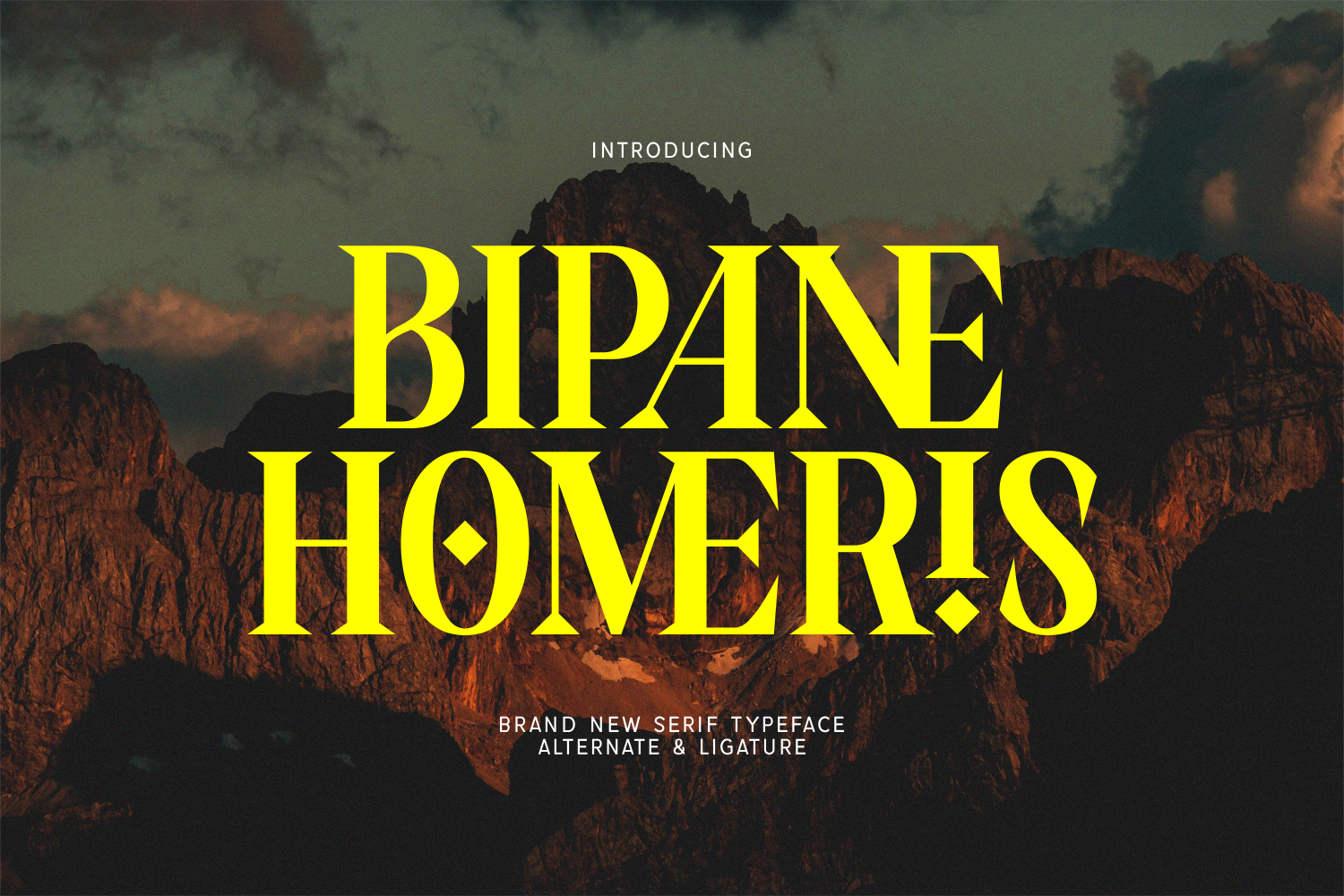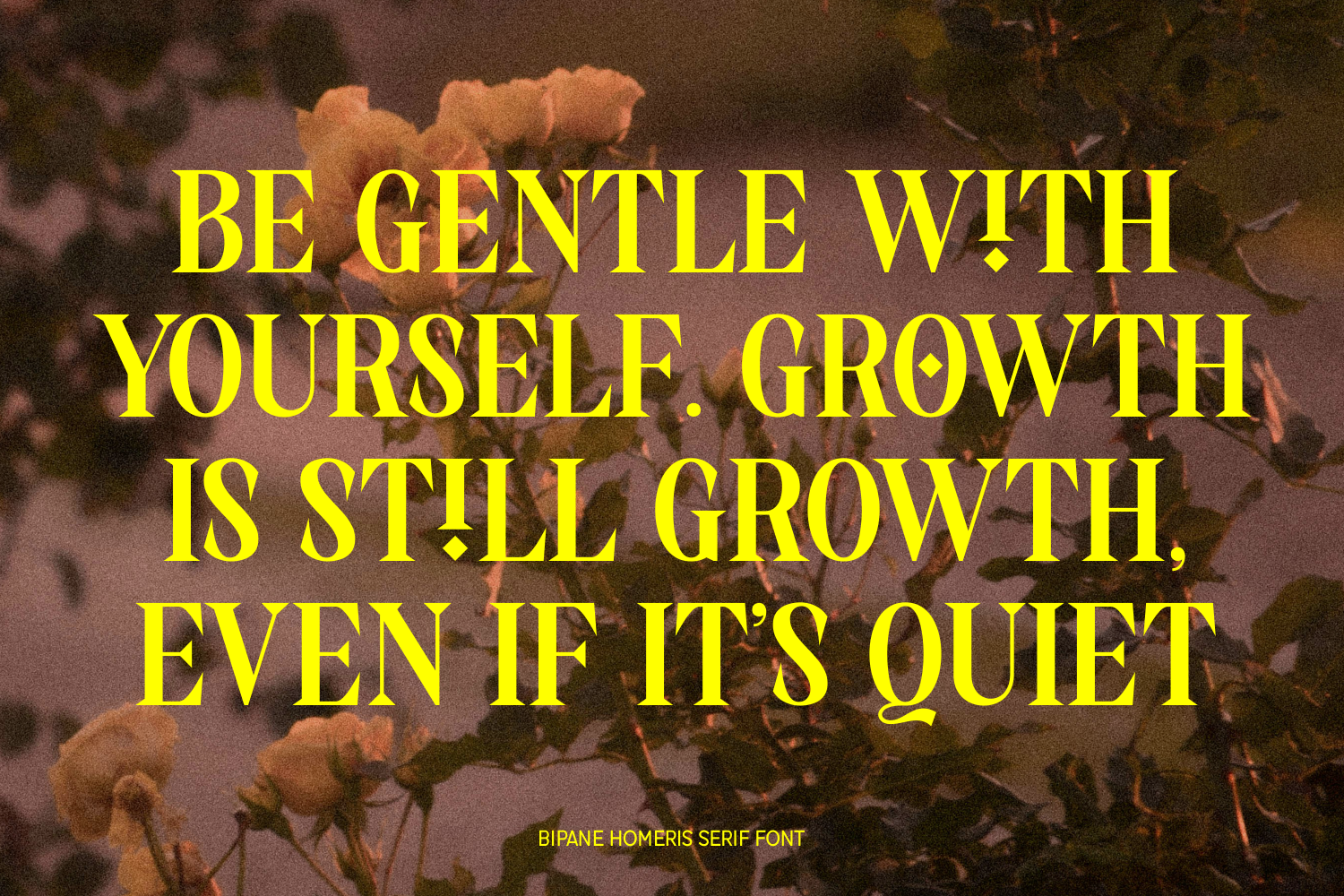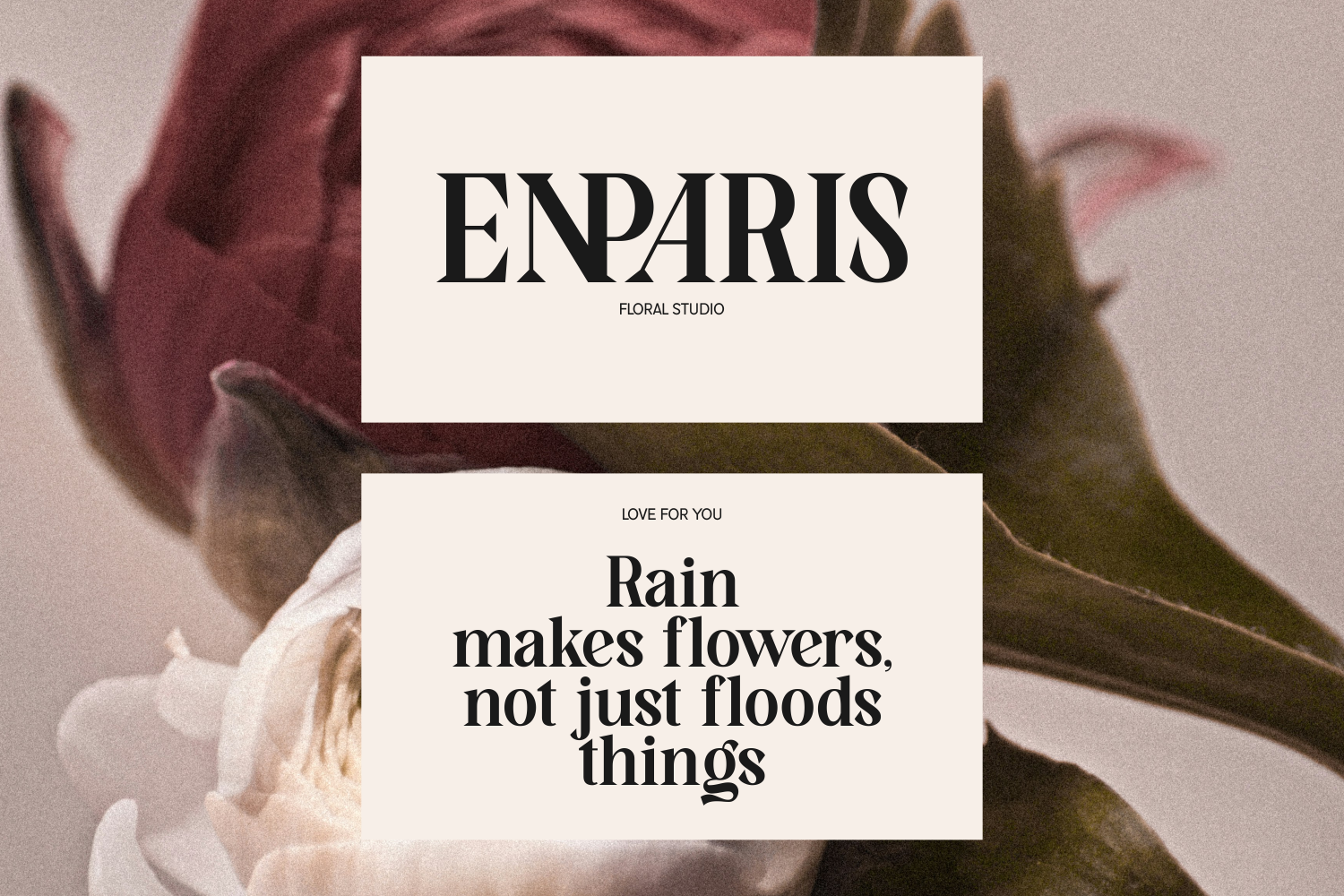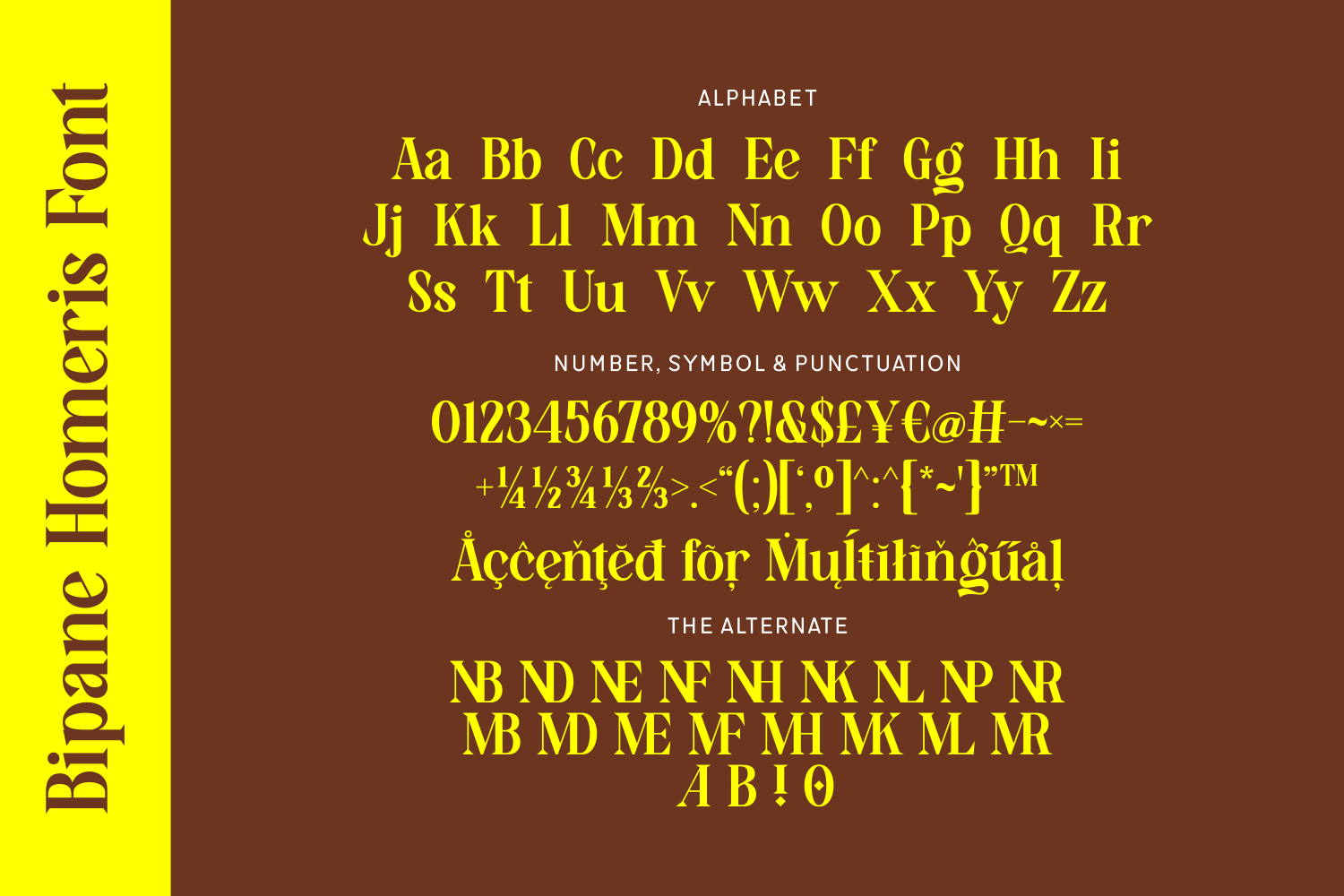
Bipane Homeris
Bipane Homeris is a bold and expressive serif typeface with sharp contrast and distinctive diamond-shaped details. Perfect for editorial headlines, branding, or any design that demands attention, it blends classical elegance with an avant-garde twist through its creative alternates and ligatures.